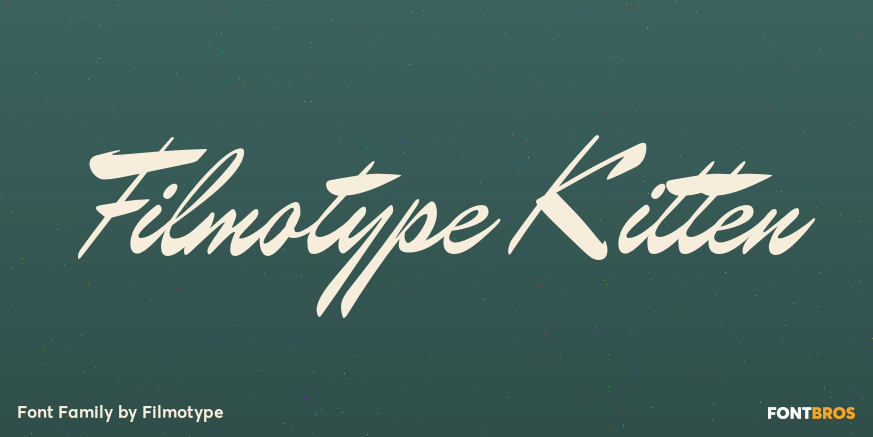
Filmotype Kitten
About Filmotype Kitten
Filmotype Kitten followed in the footsteps of Filmotype Ledger as a high-style connecting script with strong contrasting thick and thin strokes to create an elegant handlettered look which found the height of its popularity in the mid-to-late 1950s. This…